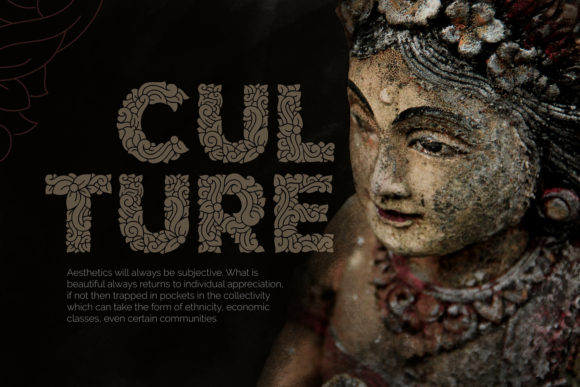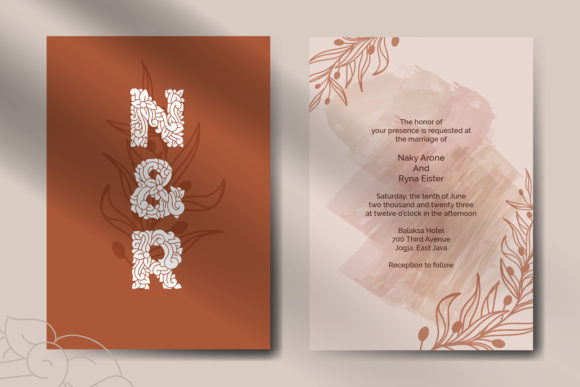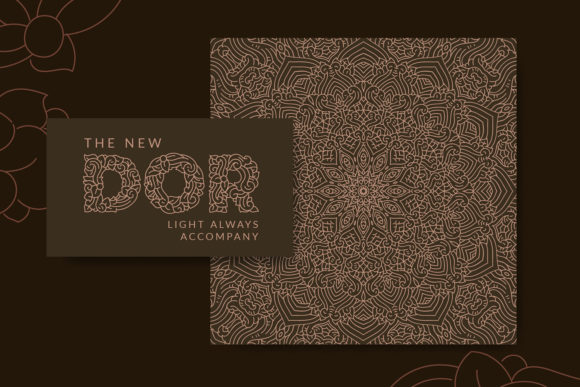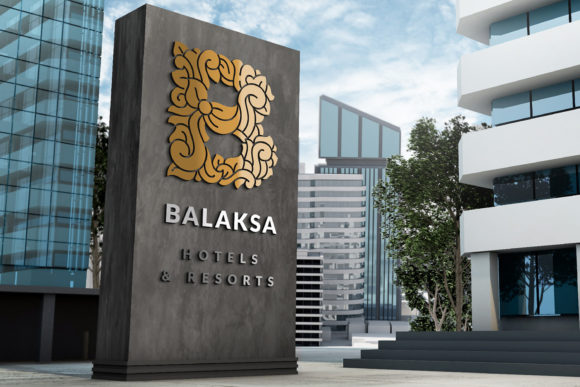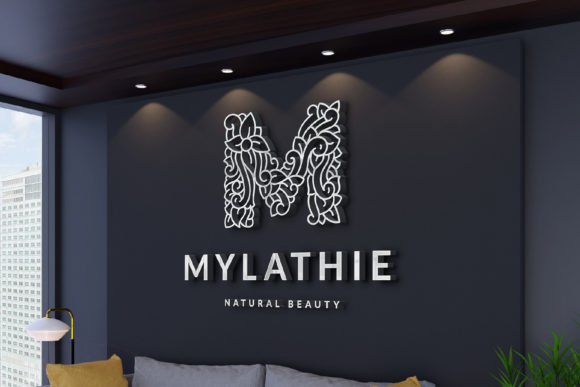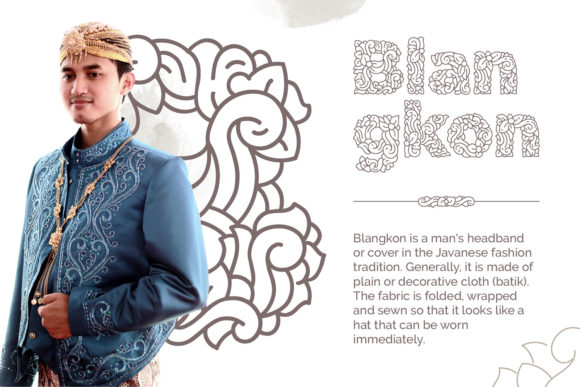
The Art of Elegance: Discovering Batik Jawa Font
As a designer, there’s nothing quite like the thrill of stumbling upon a new font that perfectly captures the essence of your creative vision. It’s that moment when all the pieces fall into place, and your project takes on a whole new level of sophistication. For me, that moment came when I discovered the Batik Jawa Font – an incredibly genuine and elegant decorative font that elevates any creation to new heights.
Batik Jawa Font is a beautifully crafted typeface that embodies the rich cultural heritage of Indonesia’s traditional batik art. Its intricate patterns and subtle nuances make it an invaluable asset for designers seeking to add a touch of authenticity and elegance to their work. Whether you’re creating a branding identity, a website, or a graphic novel, Batik Jawa Font is sure to be a game-changer in your design library.
Batik Jawa Font Key Features
- Font Family: Batik Jawa is a sans-serif font family designed to evoke the spirit of traditional Javanese batik patterns. It includes 6 font styles: Regular, Italic, Bold, Bold Italic, Condensed, and Condensed Italic.
- Unique Characteristics: Batik Jawa Font is designed to mimic the intricate patterns found in traditional Javanese batik, with unique features such as subtle texture and shading effects that evoke the handmade nature of batik art.
Designer Review: Batik Jawa Font
At first glance, the Batik Jawa Font is a beautiful, authentic representation of traditional Indonesian Batik designs. Here are some aspects that truly shine: ✨
- Unique Design Elements: The intricate patterns and lines evoke a sense of cultural heritage and history.
- Cultural Authenticity: The font effectively conveys the traditional Batik designs, making it perfect for cultural or historical projects.
- Visual Interest: The font adds an extra layer of visual interest to any design, making it perfect for headings or titles.
- Limited Character Set: The font may not include the full range of characters, making it less suitable for long texts.
- Not Ideal for Body Text: The font’s complexity may make it difficult to read in large blocks of text.
In conclusion, the Batik Jawa Font is a beautiful and unique addition to any design. While it may have some limitations, its cultural significance and visual interest make it a great choice for specific projects, such as cultural events, historical designs, or even branding for Indonesian businesses. Just be mindful of its limitations and use it wisely.
The Batik Jawa font is ideal for creating traditional and cultural designs, such as:
- Cultural events and festivals
- Traditional clothing and textiles
- Handmade crafts and art
- Indonesian and Southeast Asian-themed designs
To get the most out of the Batik Jawa font, consider the following tips:
- Use it in conjunction with other traditional Indonesian fonts for a cohesive look.